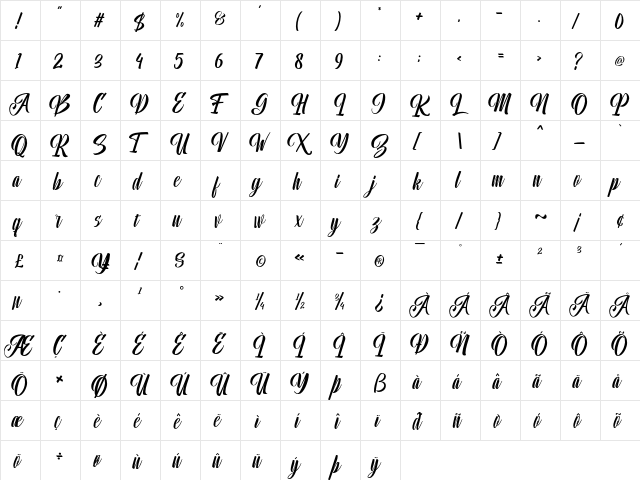
Unimate Script
| Style | Script |
| Foundry | Astageni Type |
| Designer | Nur Solikh |
Design Context for Unimate Typeface
Unimate flows with the natural rhythm of handwritten lettering, making it ideal for designs that call for warmth and personal expression.